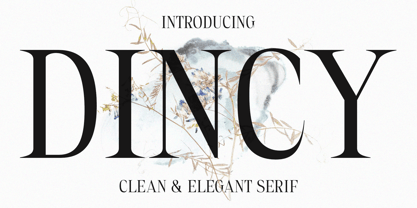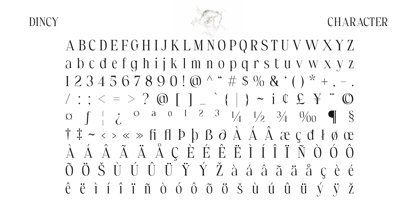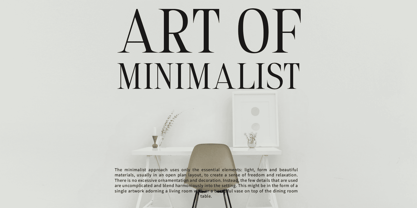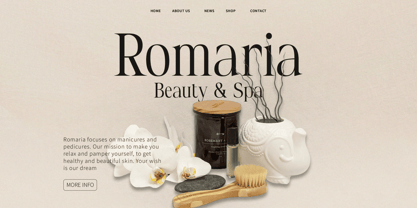
Dincy
by Craft Supply Co
The Dincy Font Family was designed by Trio Nazzar Saputra, Wahyu Hadi Yuana and published by Craft Supply Co. Dincy contains 2 styles and family package options. More about this family
Dincy – Elevating Modern Serif Typography
High-Contrast Elegance
Dincy exudes elegance with its modern serif design characterized by high-contrast strokes. Each letter carries a refined allure, perfect for projects requiring a touch of sophistication.
Sleek and Contemporary
With its sleek lines and contemporary flair, Dincy epitomizes modern serif typography. Its clean and crisp appearance adds a sense of refinement to any design it graces.
Versatile Vibes
Dincy’s elegant vibes make it versatile for various applications. From editorial layouts to branding projects, its modern serif style elevates the visual impact, ensuring a timeless appeal.
Captivating Elegance
Dincy captivates with its understated yet striking elegance. Its high contrast and modern aesthetic command attention, making it a go-to choice for designers seeking sophistication in their typography.
Modern Elegance
Dincy stands as a beacon of modern elegance in serif typography. Its high contrast and sleek design elevate any project, imbuing it with a timeless sophistication that resonates across various design applications. Experience the allure of Dincy and elevate your designs to new heights of elegance and refinement.
Designers: Trio Nazzar Saputra, Wahyu Hadi Yuana
Foundry: Craft Supply Co